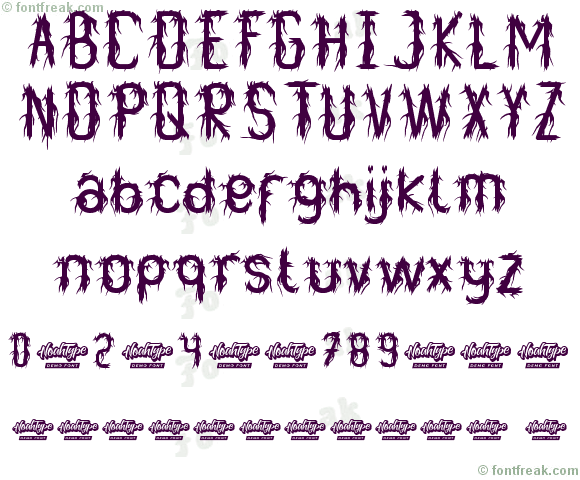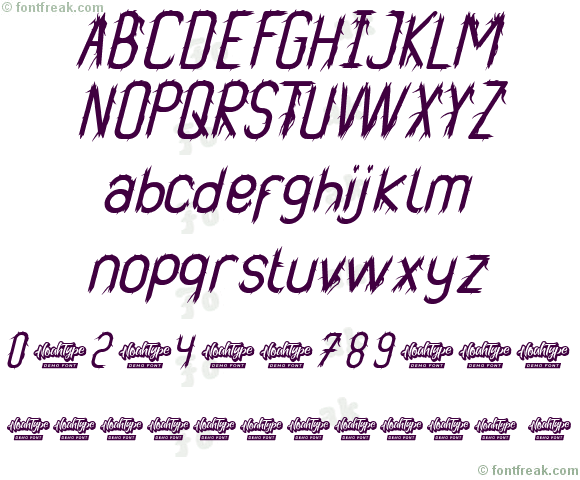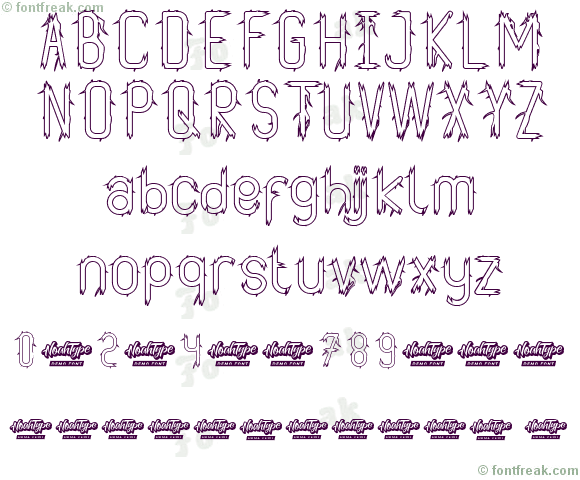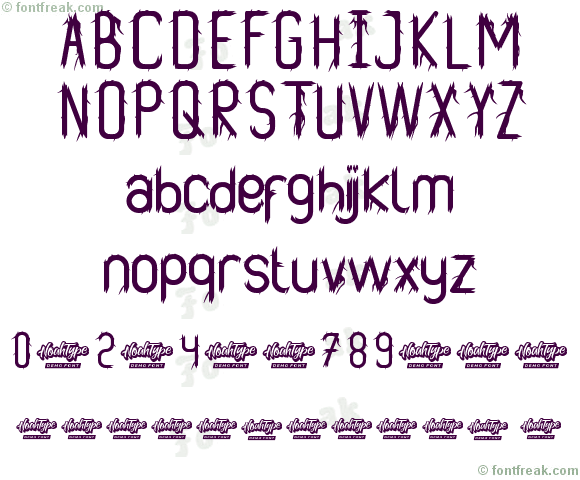
Vaulcate Demo Italic
Vaulcate Demo Bold
Vaulcate Demo
Vaulcate Demo Outline
Vaulcate Demo Italic is a striking display font created by Noah Type, categorized as a decorative typeface. Its unique design features bold strokes combined with an italic slant, giving it an energetic and dynamic feel. The font showcases an interesting combination of thick and thin contrasts, with an outline effect that adds depth and dimension to each character. The spacing between letters is thoughtfully crafted to ensure readability while maintaining a playful aesthetic. Decorative elements, including sharp angles and flowing curves, enhance its visual appeal, making it suitable for a variety of creative applications.
This font is particularly well-suited for use cases such as wedding invitations, where its elegant yet bold style can convey a sense of celebration. It can also elevate movie posters, adding a dramatic flair that captures attention. Restaurant menus can benefit from its unique character, creating an inviting atmosphere that reflects the establishment's personality. Additionally, content creators and graphic designers will find it perfect for social media graphics, giving their posts a distinctive look that stands out in crowded feeds.
Targeting graphic designers, small business owners, and content creators, Vaulcate Demo Italic meets the needs of anyone looking to make a memorable impression. The font's versatility allows it to adapt to various themes and styles, making it a valuable asset in any designer's toolkit.
What sets the Vaulcate Demo Italic font apart is its ability to blend boldness with elegance, making it an ideal choice for projects that require a touch of sophistication without sacrificing creativity. With its unique character and available license as freeware, you can explore the possibilities of this font with a Vaulcate Demo Italic font free download, ensuring your next design project is both stylish and impactful.